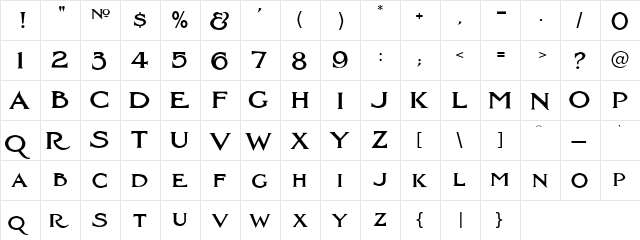
LHF Modern 1908 Regular
Design Context for LHF Modern 1908 Typeface
LHF Modern 1908 offers clean, dependable letterforms without strong stylistic allegiance, making it a practical choice for designers who need flexibility.
Pro Tip: Use LHF Modern 1908 in both headline and body roles to test its range before committing to a single application.